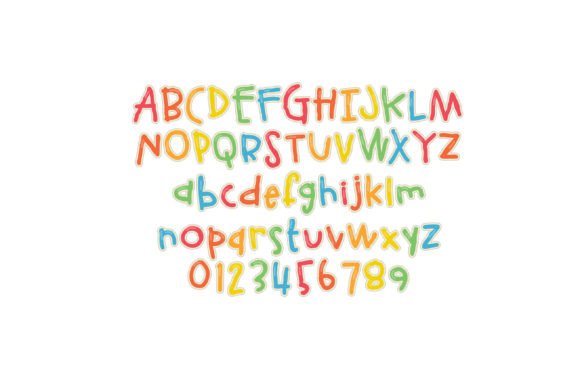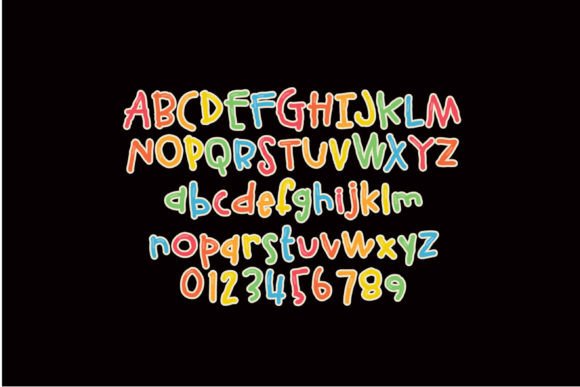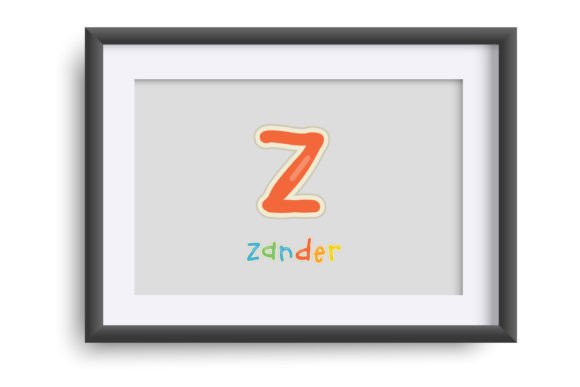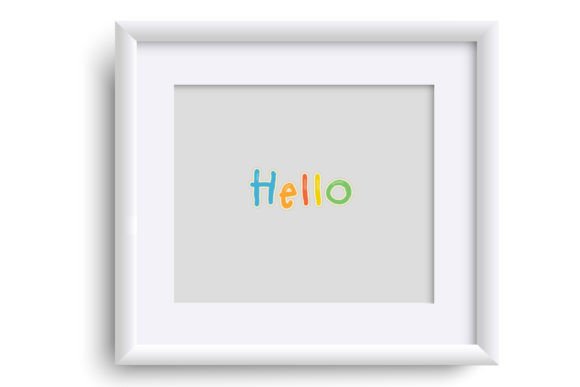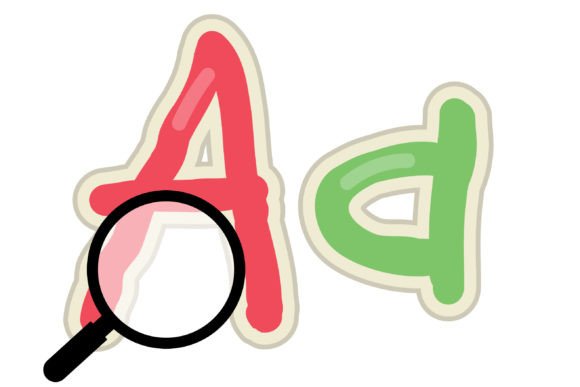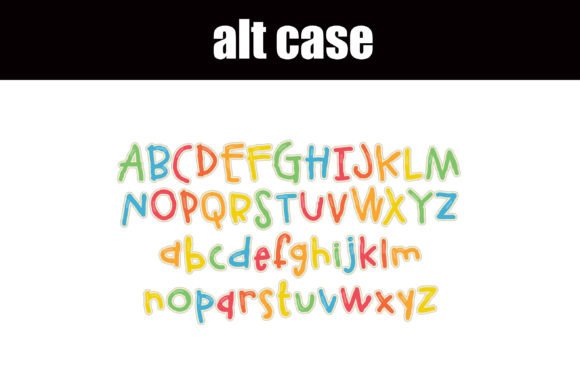
Introduction to Kindergarten Colors Font
This full-color font features youthful lettering with in a rainbow of colors.
There is an alt version of each letter in a different color that you can access through your system character map OpenType full-color (SVG) fonts are installed like any normal .
Key Features of Kindergarten Colors Font